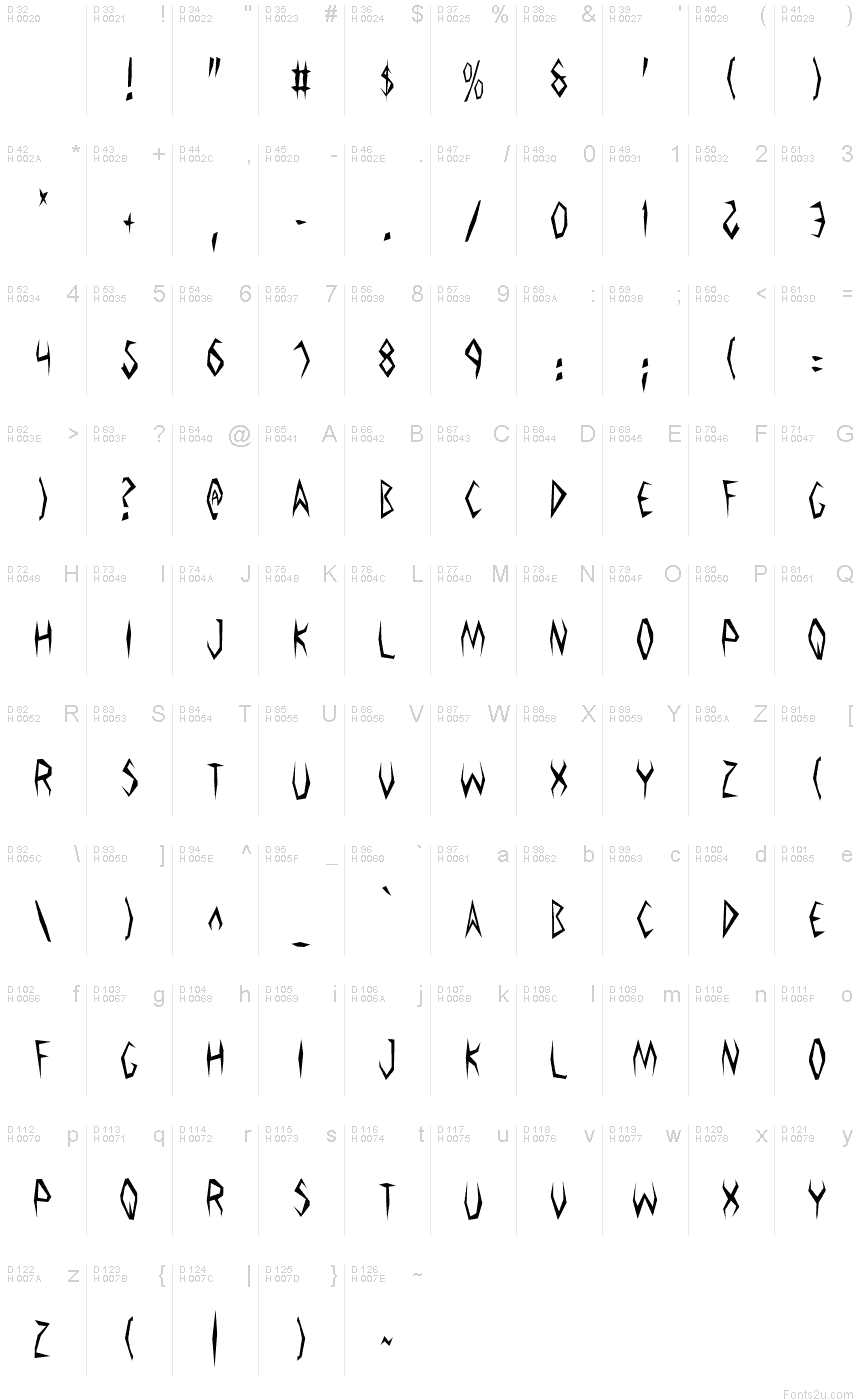
Argosy the Second
Argosy the Second font by Iconian Fonts is a free distorted display typeface with letters that look carved from sharp metal shards. The forms are tall, spiky, and slightly off-kilter, giving text a scratchy, ritualistic energy that feels half occult, half heavy-metal logo. Tight spacing pulls the jagged shapes together into a dense, intimidating wordmark that instantly commands attention.
Using Argosy the Second font, your titles snap into place on horror posters, Halloween event flyers, metal or punk band logos, dark fantasy book covers, game titles, and YouTube thumbnails. This free font thrives at large sizes where its angular cuts and twisted rhythm can really bite. Pair it with a simple, neutral sans serif for body text to keep everything legible while the headline does the screaming.